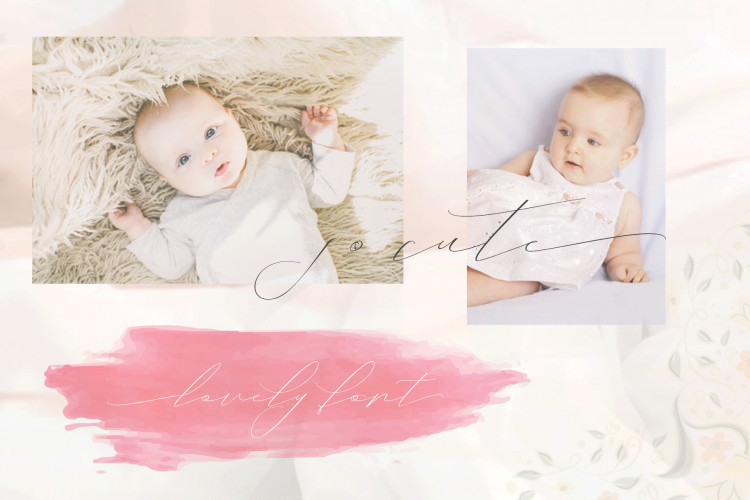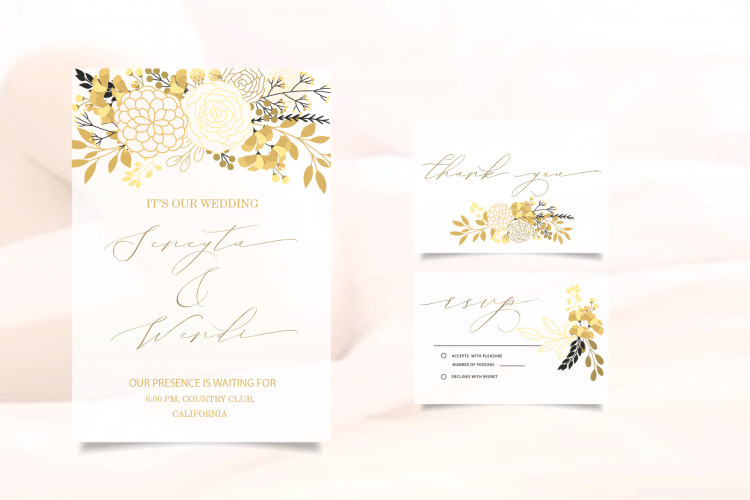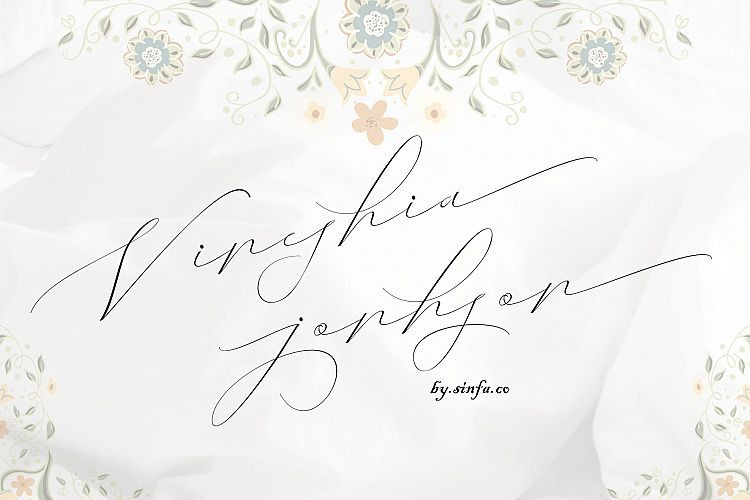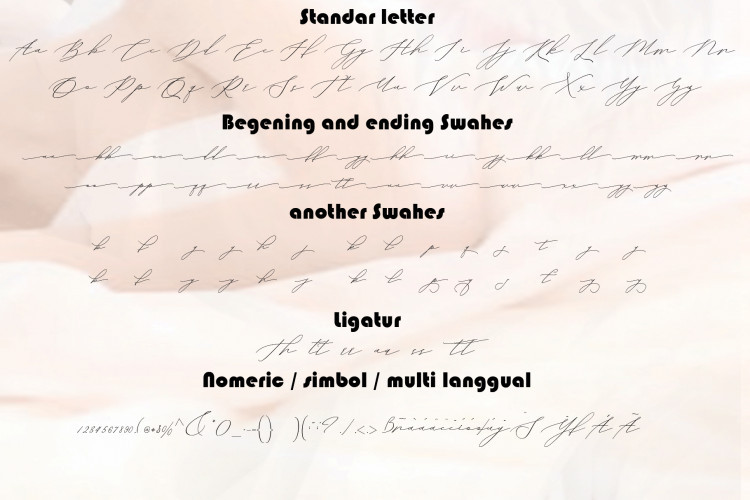
Vineshia Jonhson Handwritten Font
Hello Guys! A modern handwritten font by sinfa.co. This is a new signature font with femininity and edginess. Unbridled features a casual stroke + varied baseline for a true handwritten look. Say hello to the Vineshia Jonhson Font. Something beautiful does require extra energy to realize it !!! This Vineshia Jonhson font is very tiring in its work but now you only need a few minutes in an instant to make various crafts that you are working on, which allows you to work on various types of typography you need to get beautiful hands made in a short time.
With some interesting initial and final forms, the Vineshia Jonhson font suits your needs in creating logos, invitations, cards, product packaging, headers, and whatever you want.